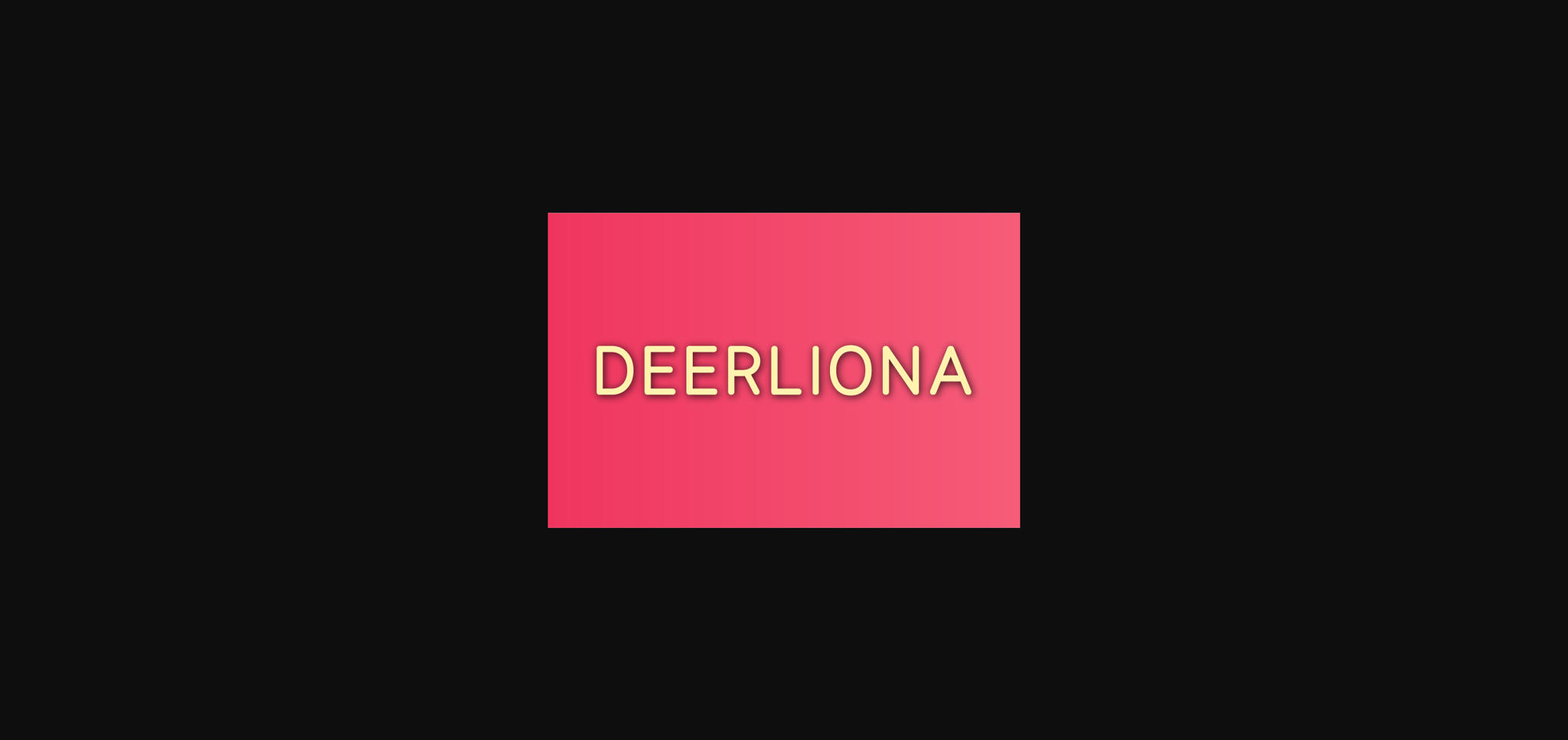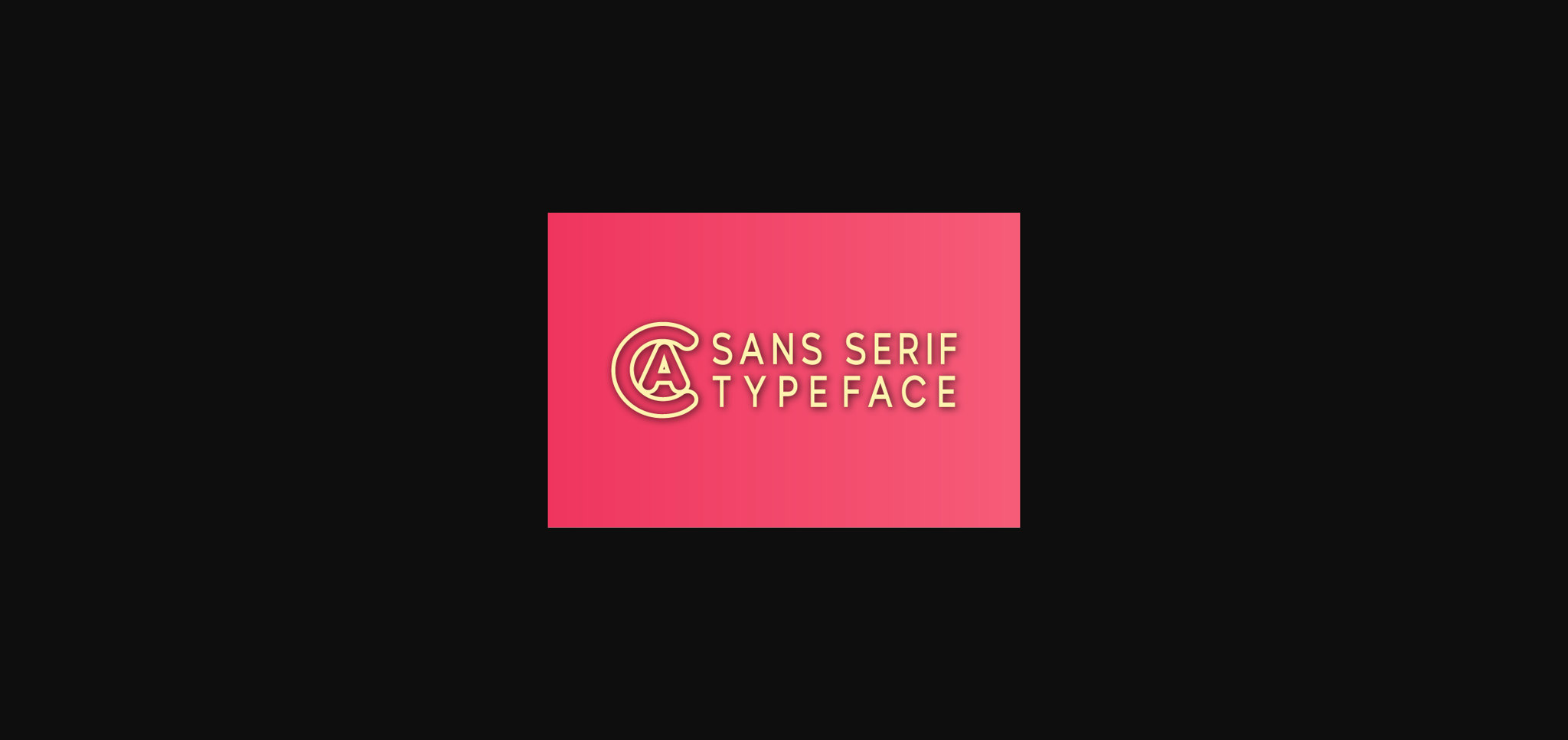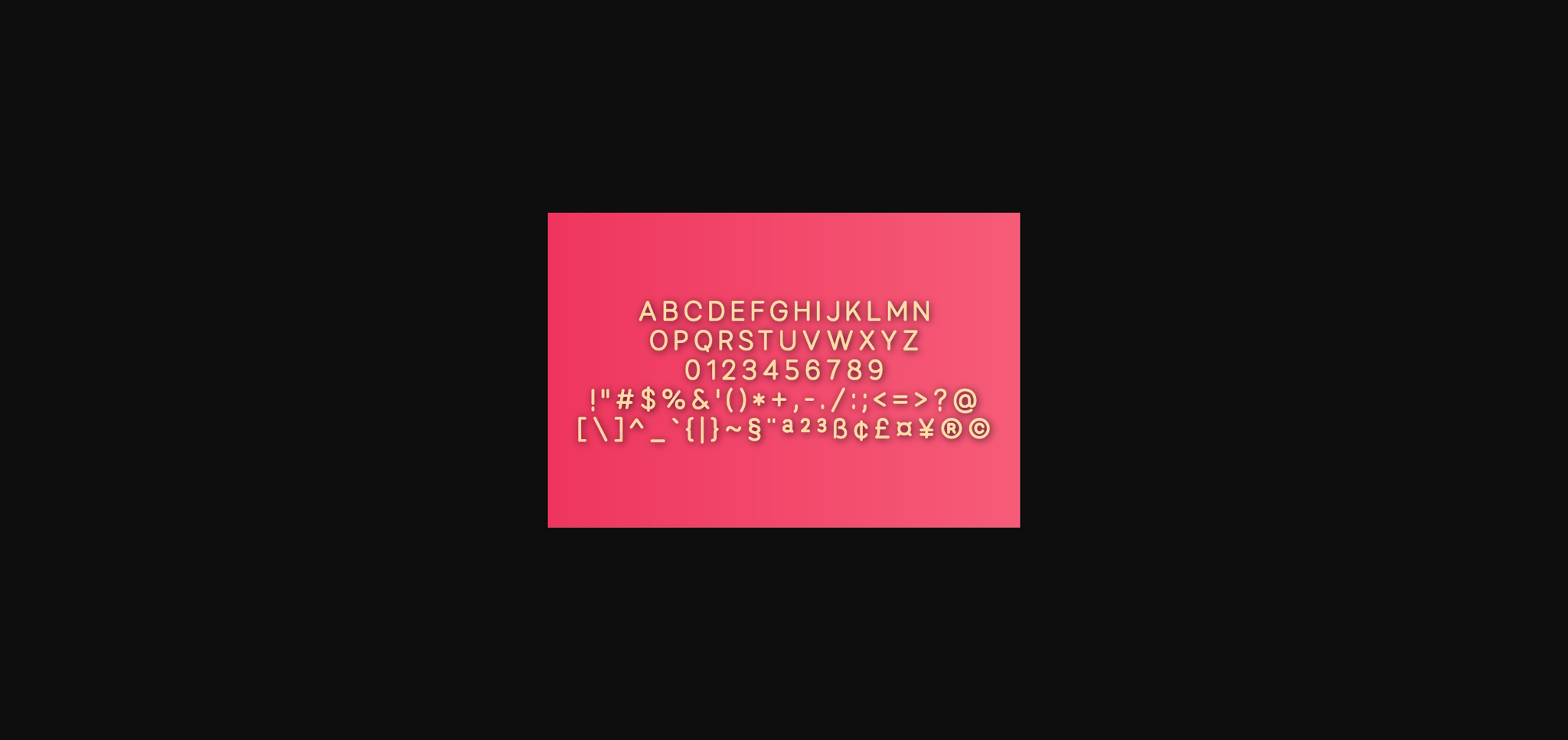
Deerliona Font
About Deerliona Font
Deerliona is a minimal and neat sans serif font. It can easily be matched to an incredibly large set of projects, so add it to your creative ideas and notice how it makes them stand out!